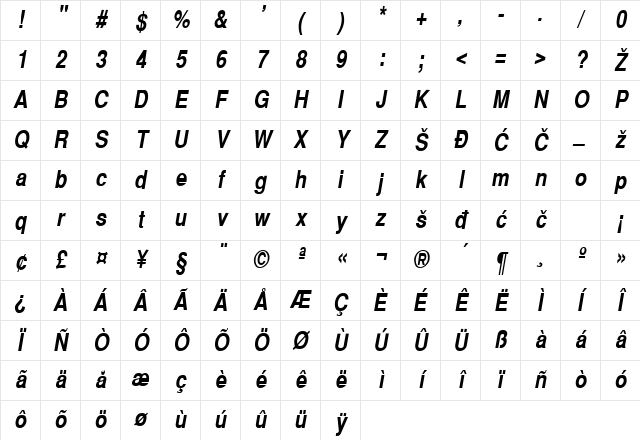
SwizNart Regular
Complete SwizNart Regular glyph index. Displaying only characters natively supported by SwizNart Regular font.
Design Context for SwizNart
SwizNart is a composed and adaptable typeface that performs quietly and consistently across a wide range of design contexts.